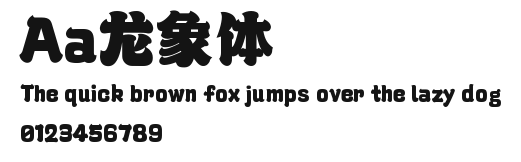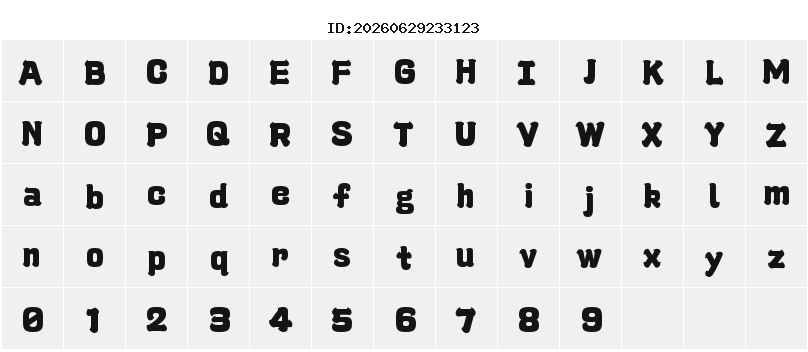
Aa龙象体 Preview
• Font Name: Aa龙象体
• Font Style: 常规
• Font ID: 1.000;Aa;AaLXT;2021
• Full Font Name: Aa龙象体
• PostScript Name: AaLXT
• Character Count: 8010
• Designer: Aa
• Manufacturer: 翰美互通(厦门)科技有限公司
• Description: AaLXT is a fantastic font with excellent features designed for user interfaces and electronic communications.
About Aa龙象体.ttf
Aa龙象体.ttf is a modern, elegant sans-serif font designed for ultimate readability and visual harmony. Perfect for branding, headlines, web design, and print materials.